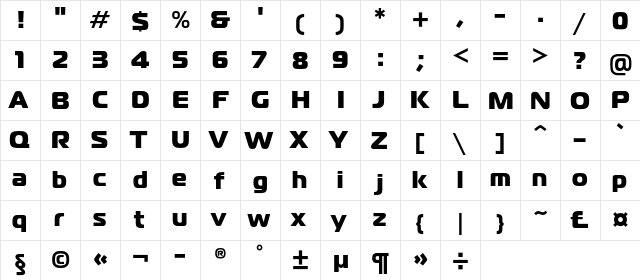
MagistralBlackC Regular
Design Context for MagistralBlackC Typeface
MagistralBlackC is a composed and adaptable typeface that performs quietly and consistently across a wide range of design contexts.